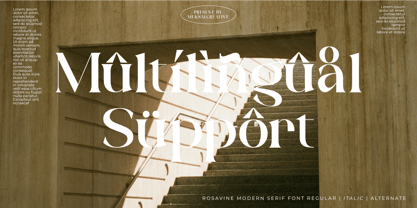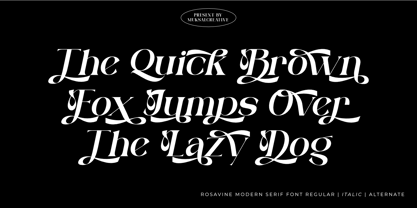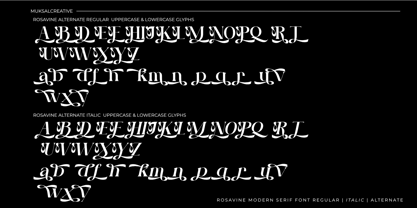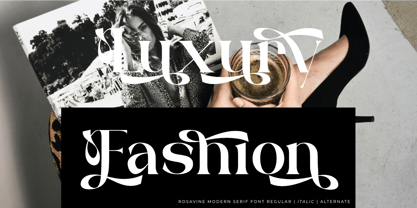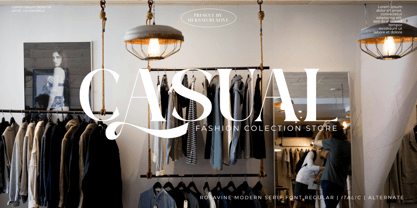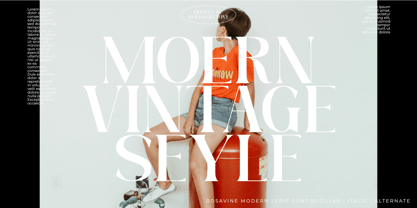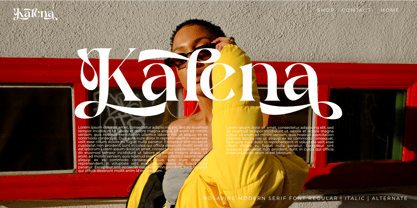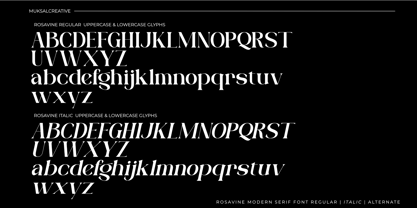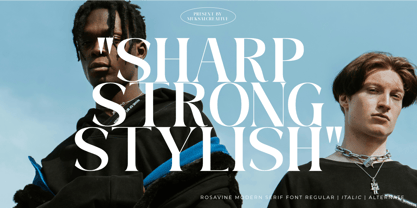
Rosavine
by Muksal Creatives
The Rosavine Font Family was designed by Muksalmina and published by Muksal Creatives. Rosavine contains 2 styles and family package options. More about this family
Rosavine is a refined serif typeface that blends timeless elegance with expressive flourishes. Crafted with a high-contrast structure and graceful curves, Rosavine is perfect for editorial layouts, luxury branding, wedding designs, and high-end packaging.
With its stylish regular characters and decorative alternates, Rosavine offers versatility — whether you're aiming for a clean sophisticated look or a dramatic, ornamental statement.